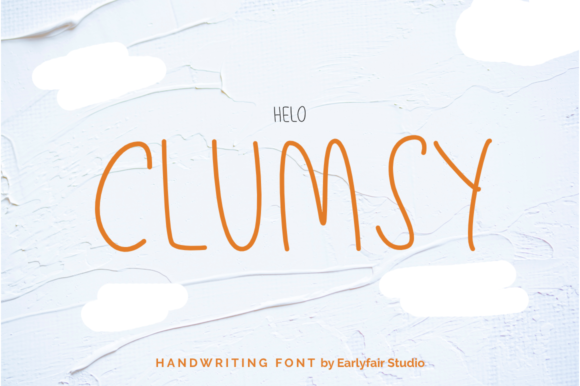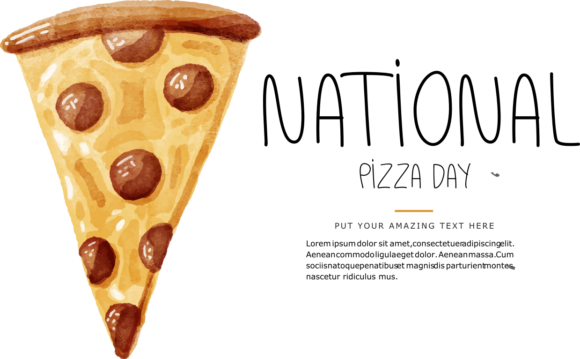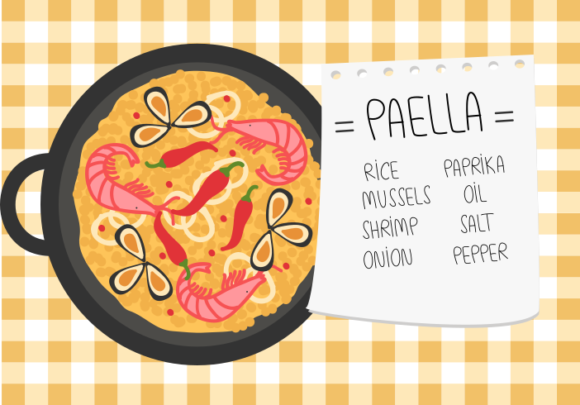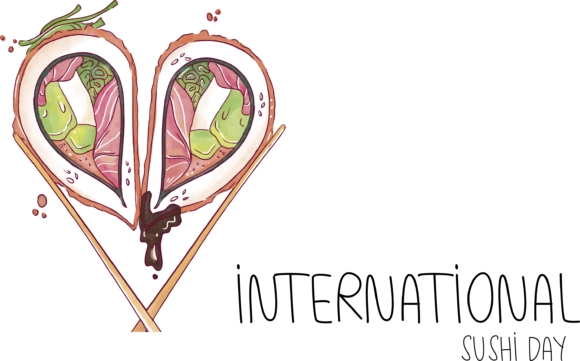
Clumsy Font
About Clumsy Font
Clumsy is a friendly, quirky and relatable script font that feels fresh and modern. Get inspired by its authentic and cute vibe!